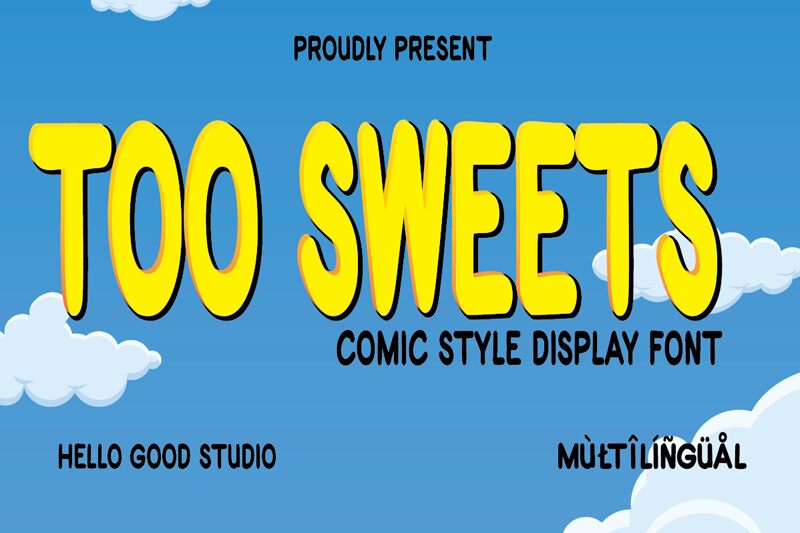
TOO SWEETS
Too sweets font is a free display typeface created by Studio Hello Good. The comic styled character set captivates readers and embarks them on an exciting visual journey. Defined by its rounded edges, bold presence, vintage appeal, friendly aura, and casual tone, it easily captures the attention of readers like no other font.